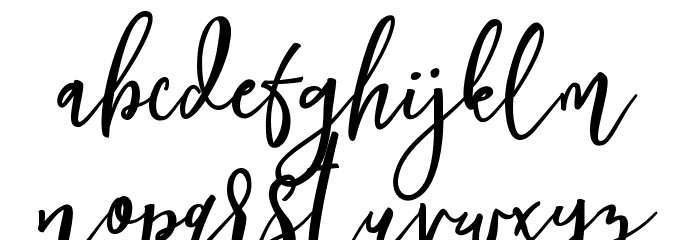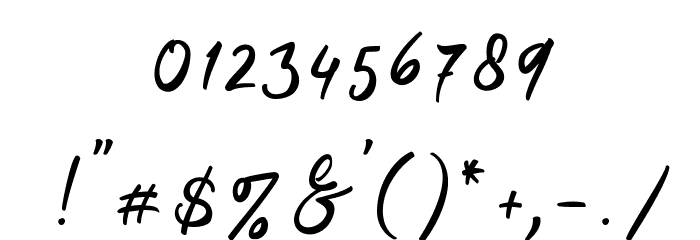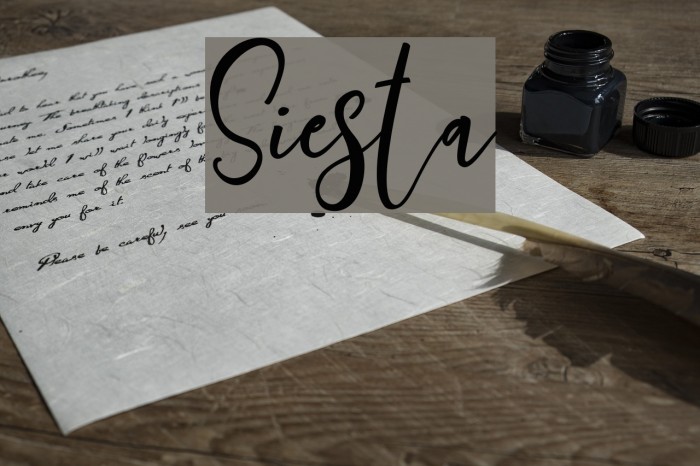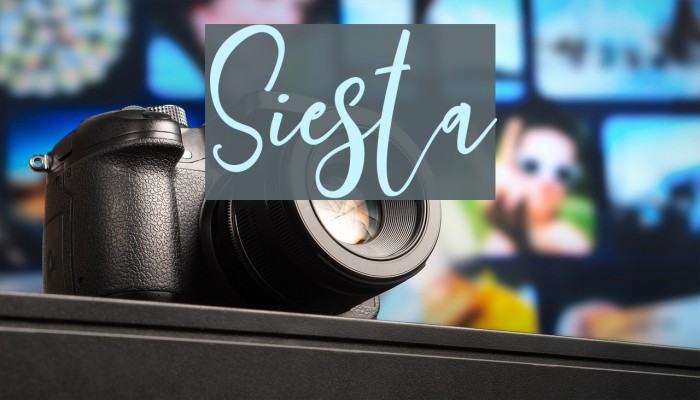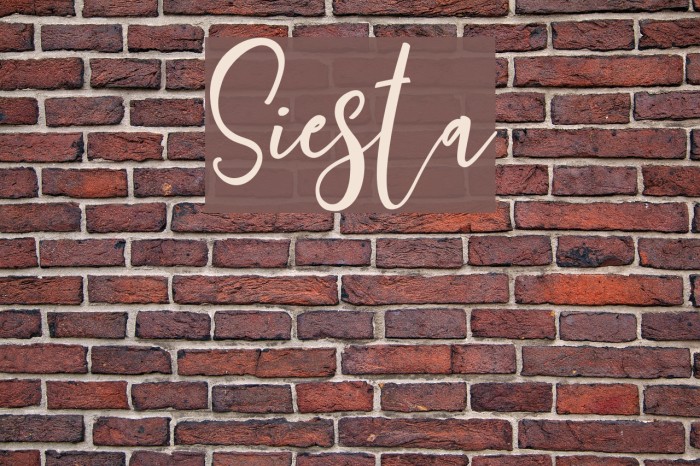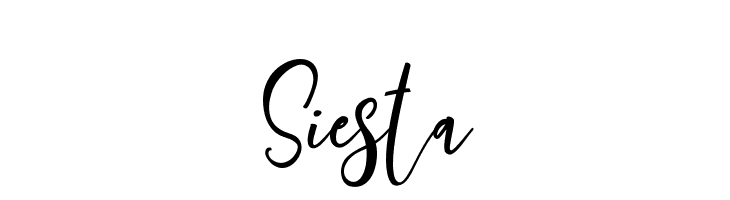
Siesta Font
This font features a dynamic and flowing script style, characterized by its elegant and fluid letterforms. The uppercase letters are tall and slightly slanted, with a consistent stroke that gives a sense of movement and grace. The lowercase letters maintain a similar fluidity, with some letters featuring loops and swashes that add to the overall decorative feel. The numerals are clear and maintain the same flowing style, making them easily readable. Special characters are well-integrated, maintaining the script's aesthetic. This font exudes a sense of sophistication and creativity, making it ideal for projects that require a personal and artistic touch.
A dynamic and elegant script font with fluid, decorative letterforms.
- Proposed Projects: Ideal for wedding invitations, greeting cards, branding, and logo design.
- Use Case: Logos, Invitations, Artistic projects